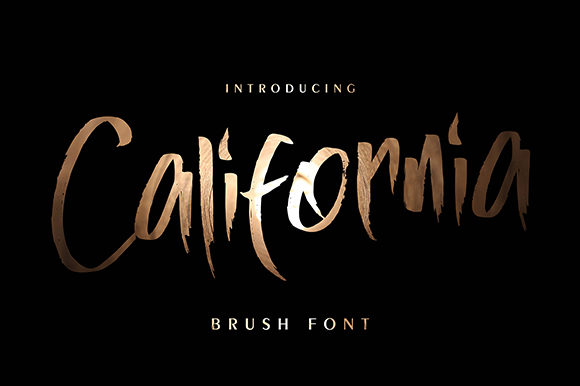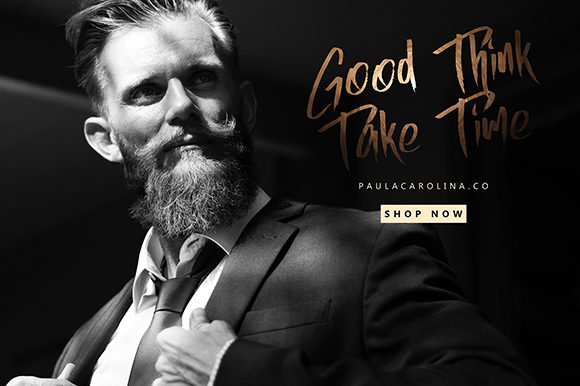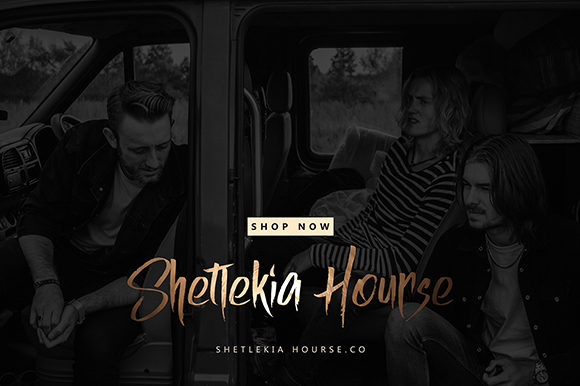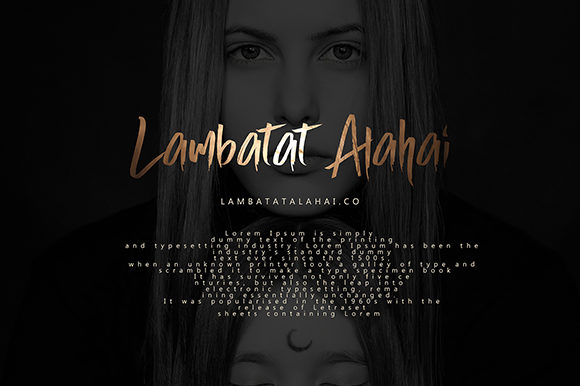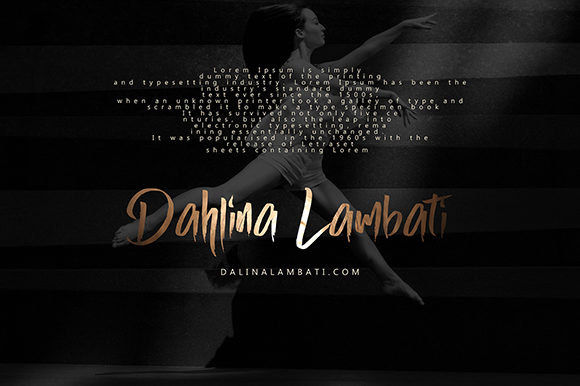
California Font
About California Font
California is a stunningly beautiful handwritten font with a cool vibe. Inspired by the Californian sunset, this script is a true stand out!